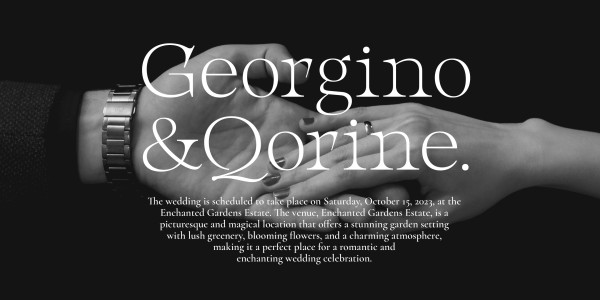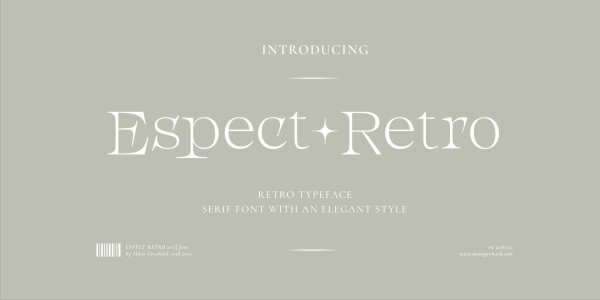
Espect Retro Font
Espect Retro Font is a serif font that harmonious blend of the modern and the classic. Its wide, yet hairline-thin structure gracefully extends into elongated serifs, giving it a poised and elegant stance. It’s a celebration of design that evokes charm and cuteness in every curve and counter.
Espect Retro is created to be a designer’s trusted companion, crafted to perfection, and tailored to elevate professional designs with its captivating allure.